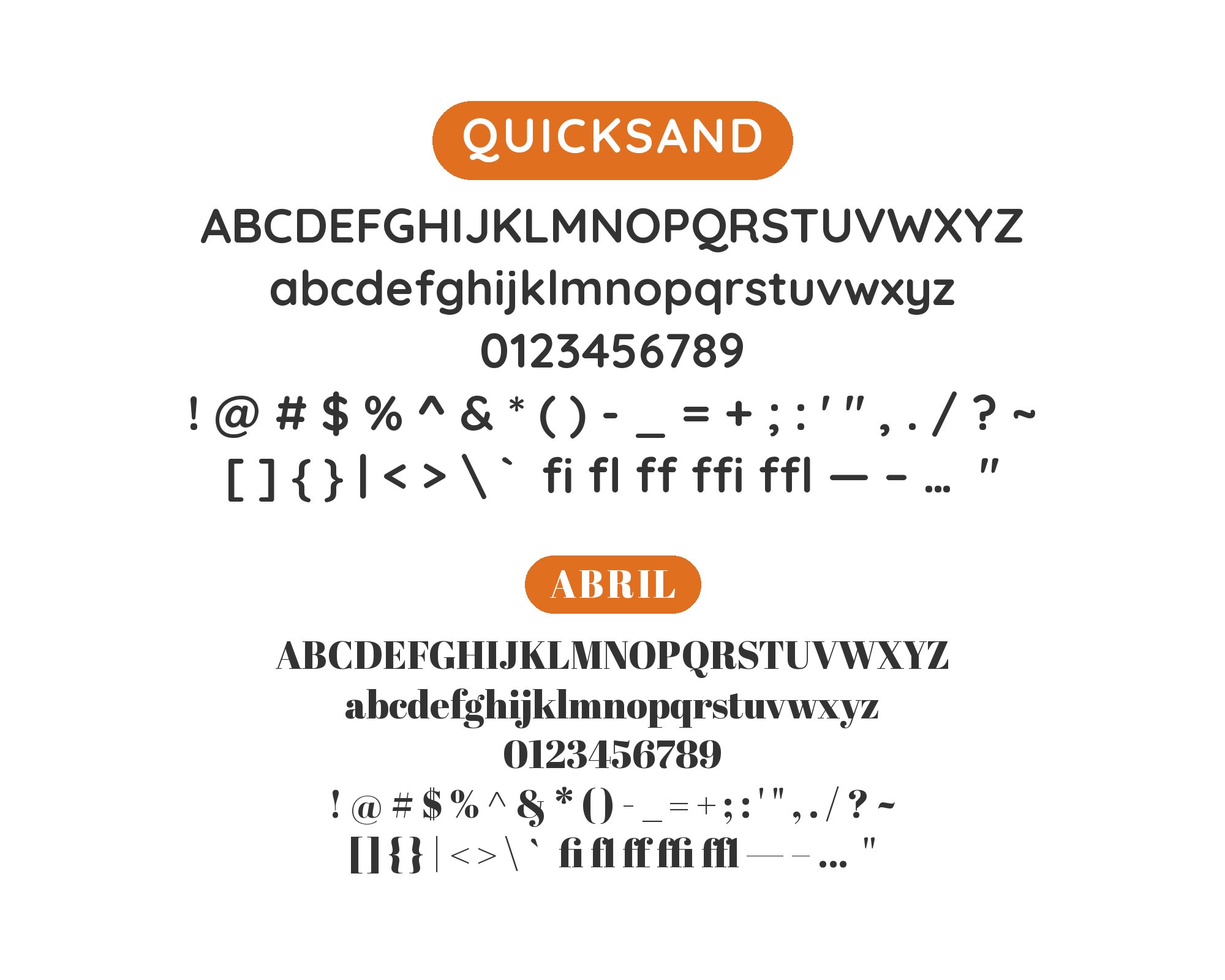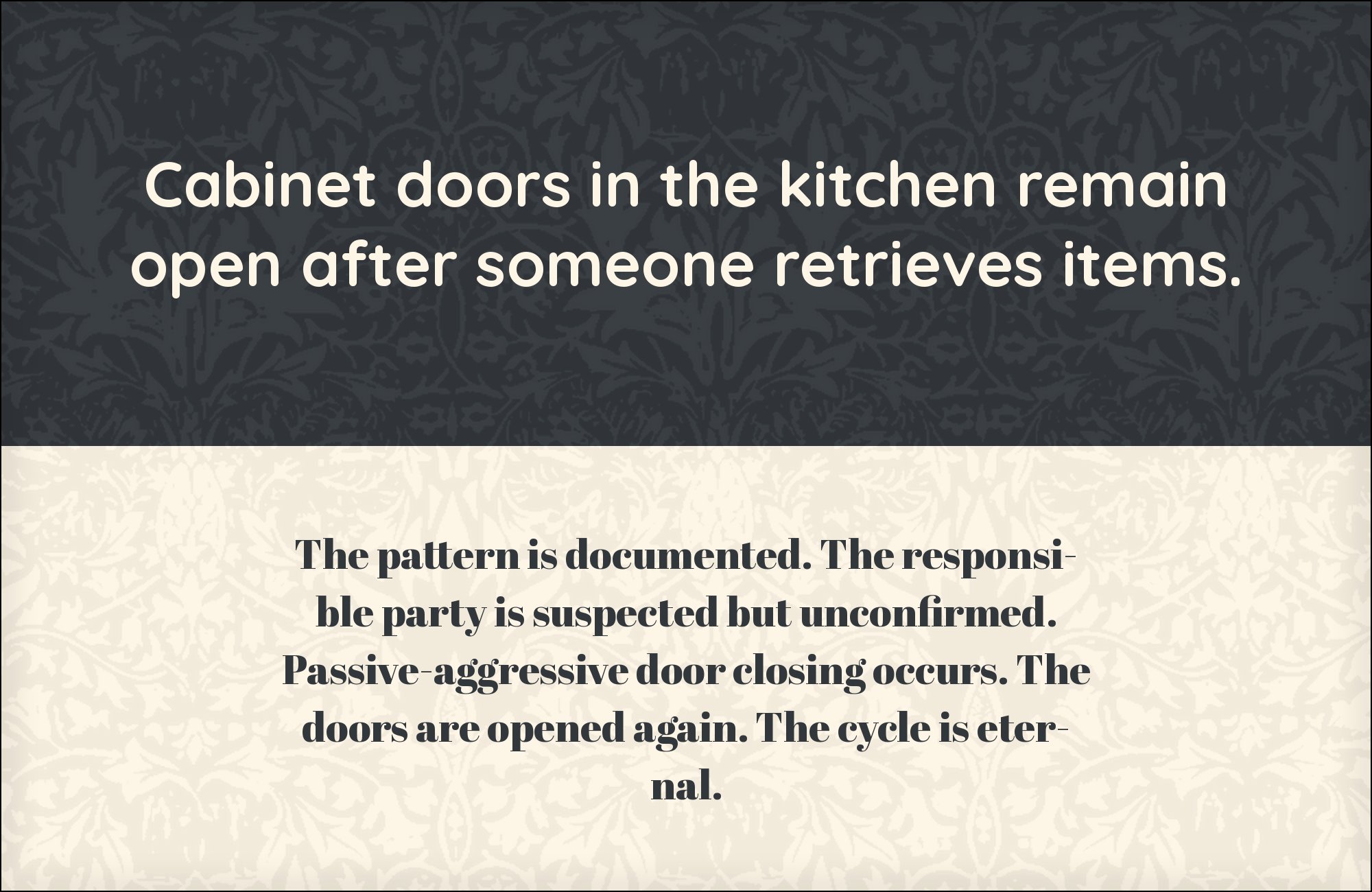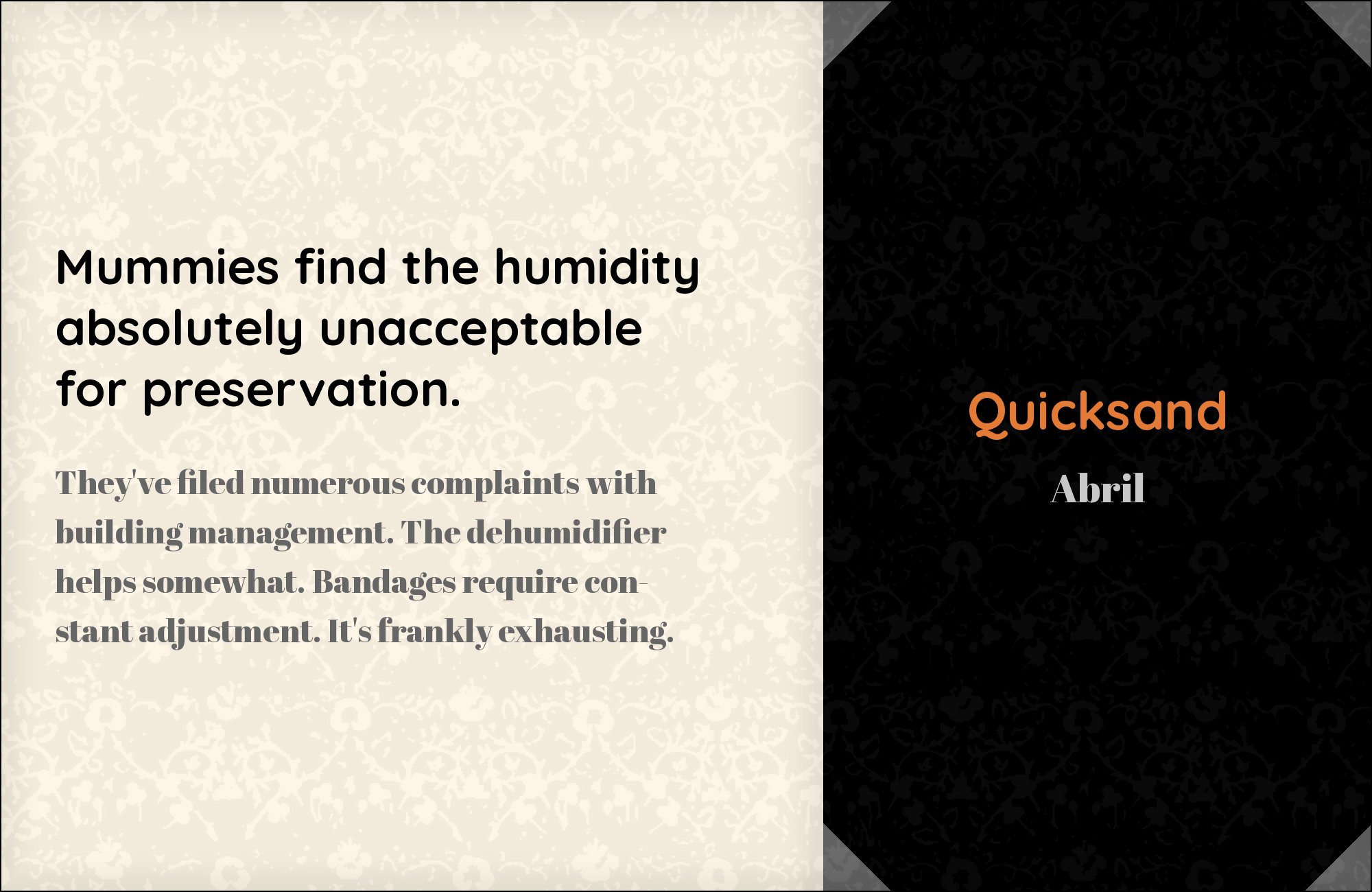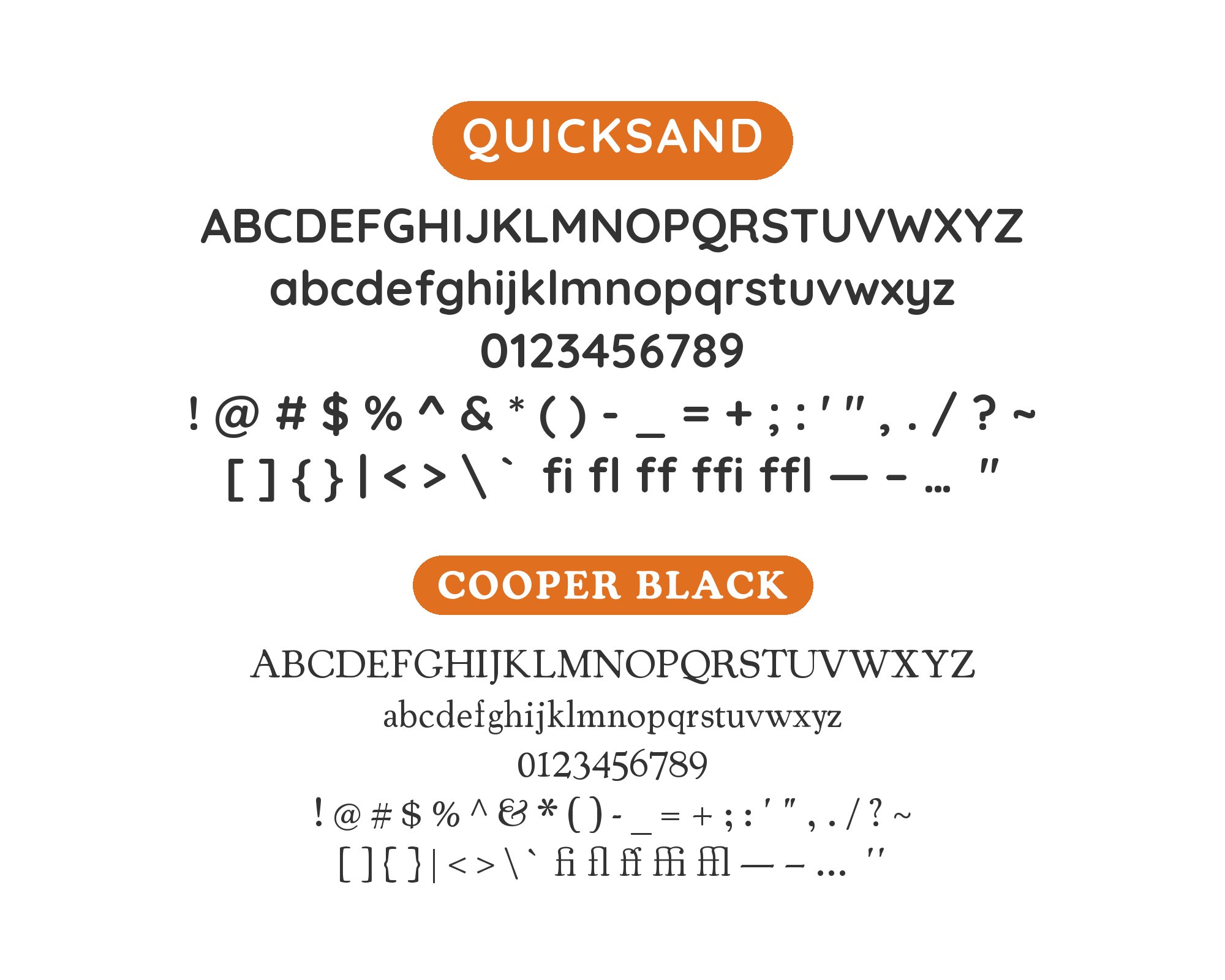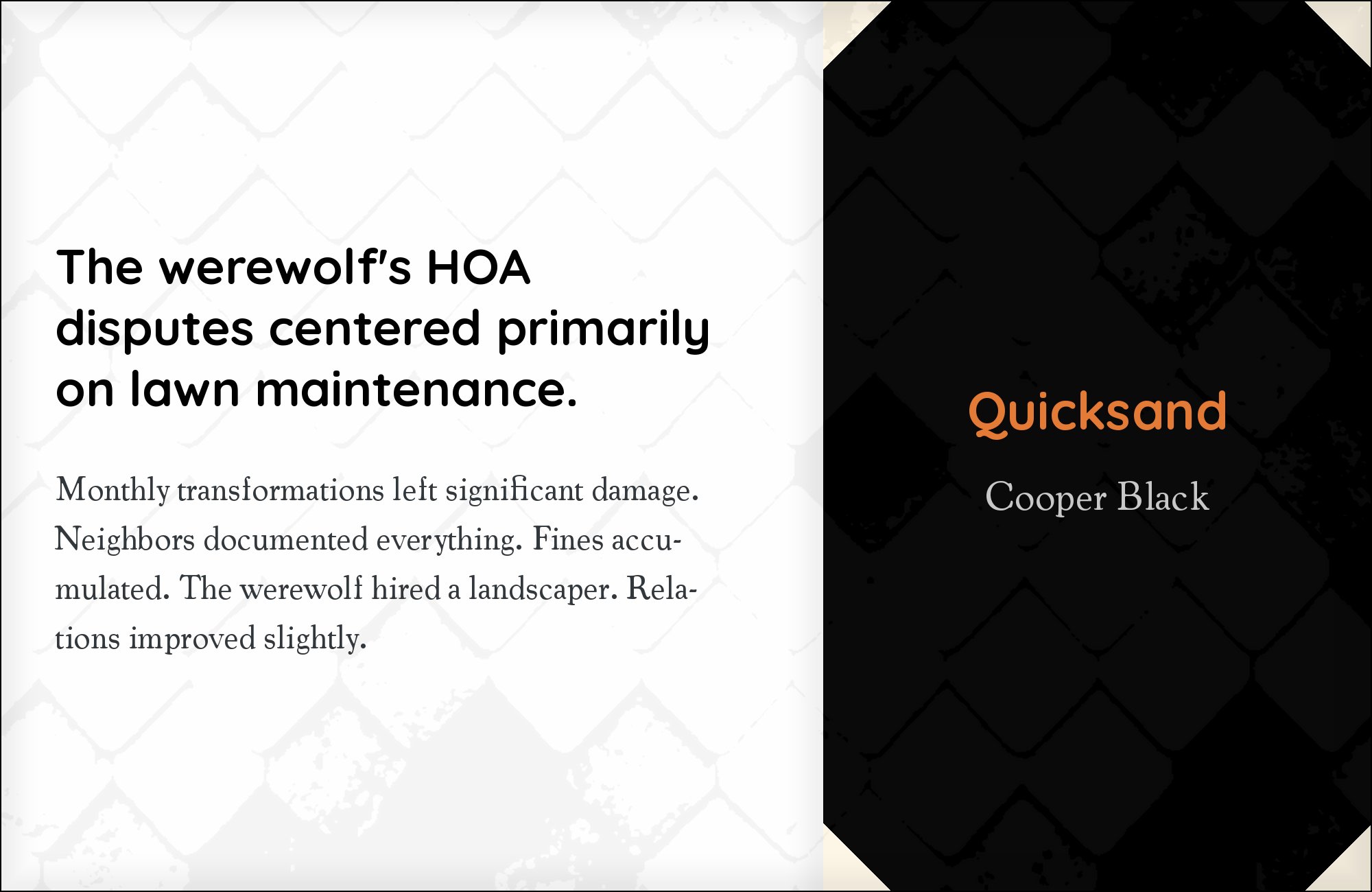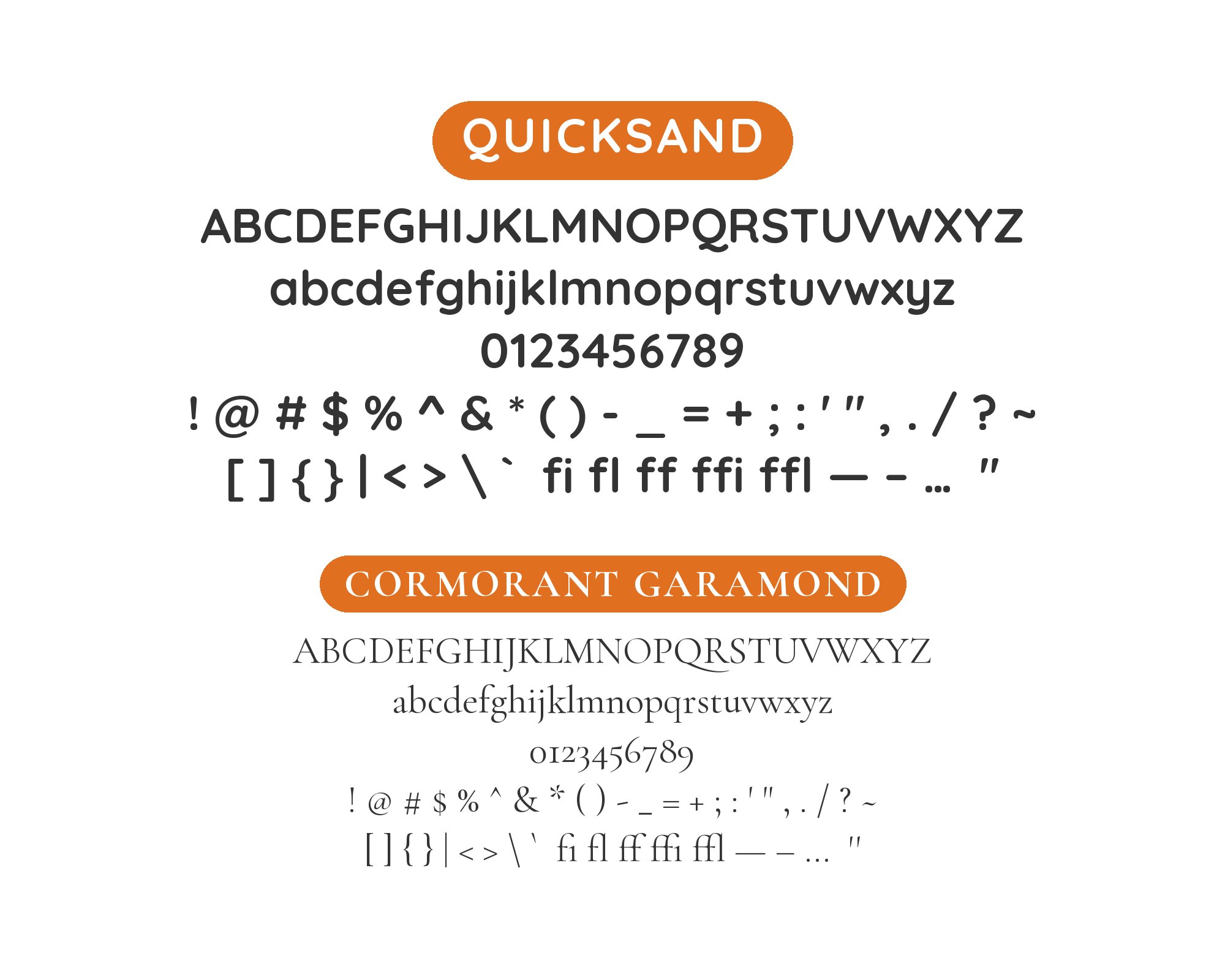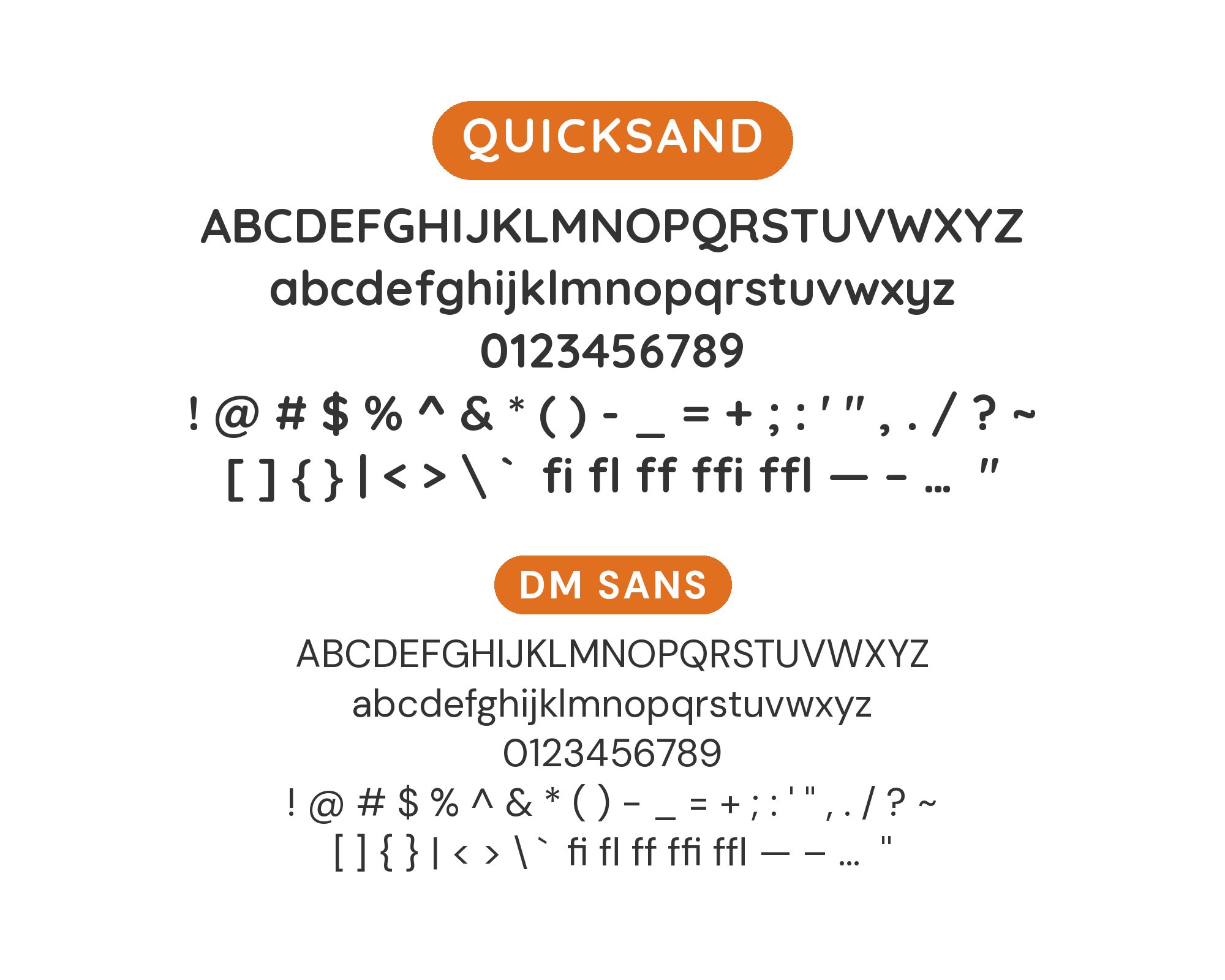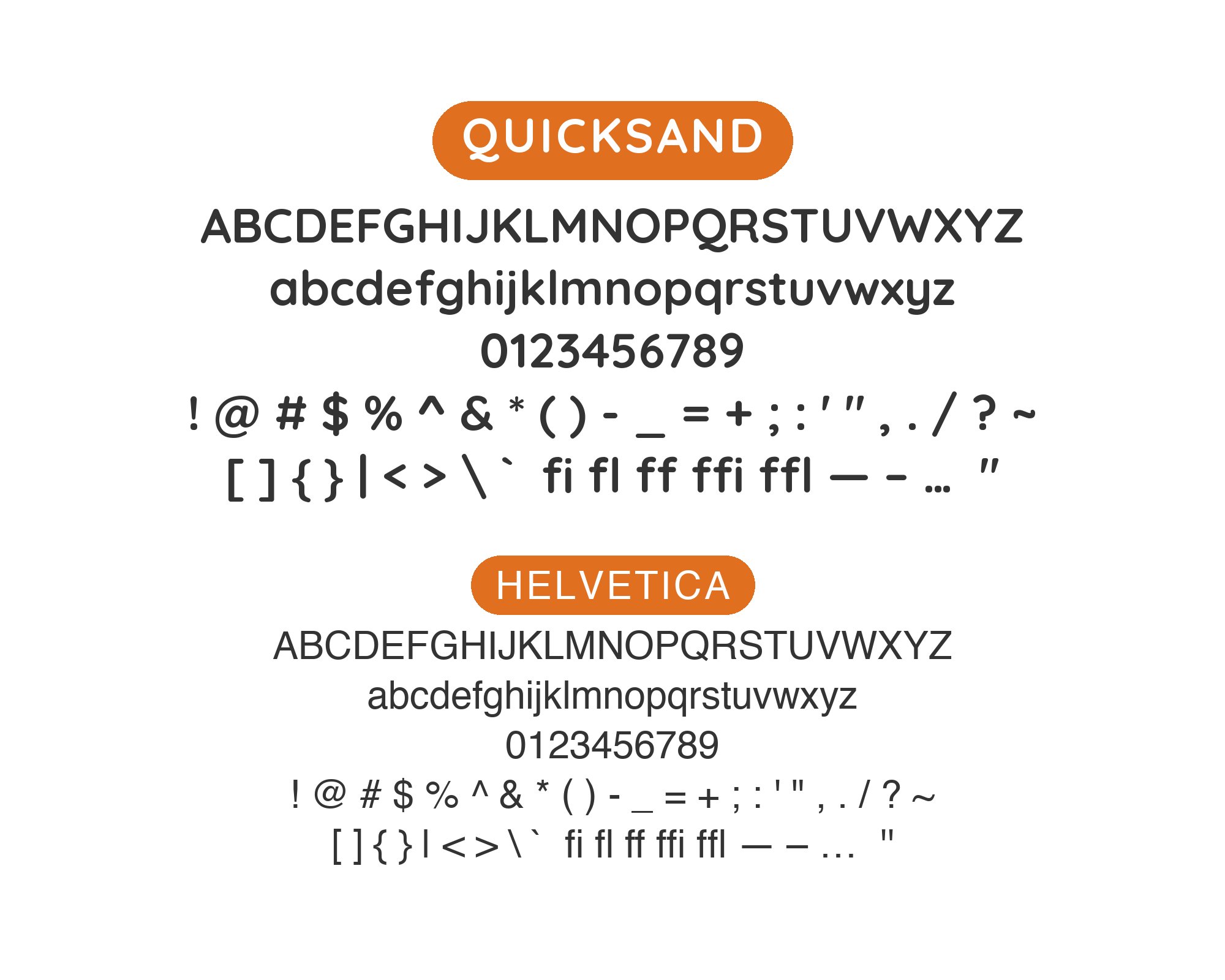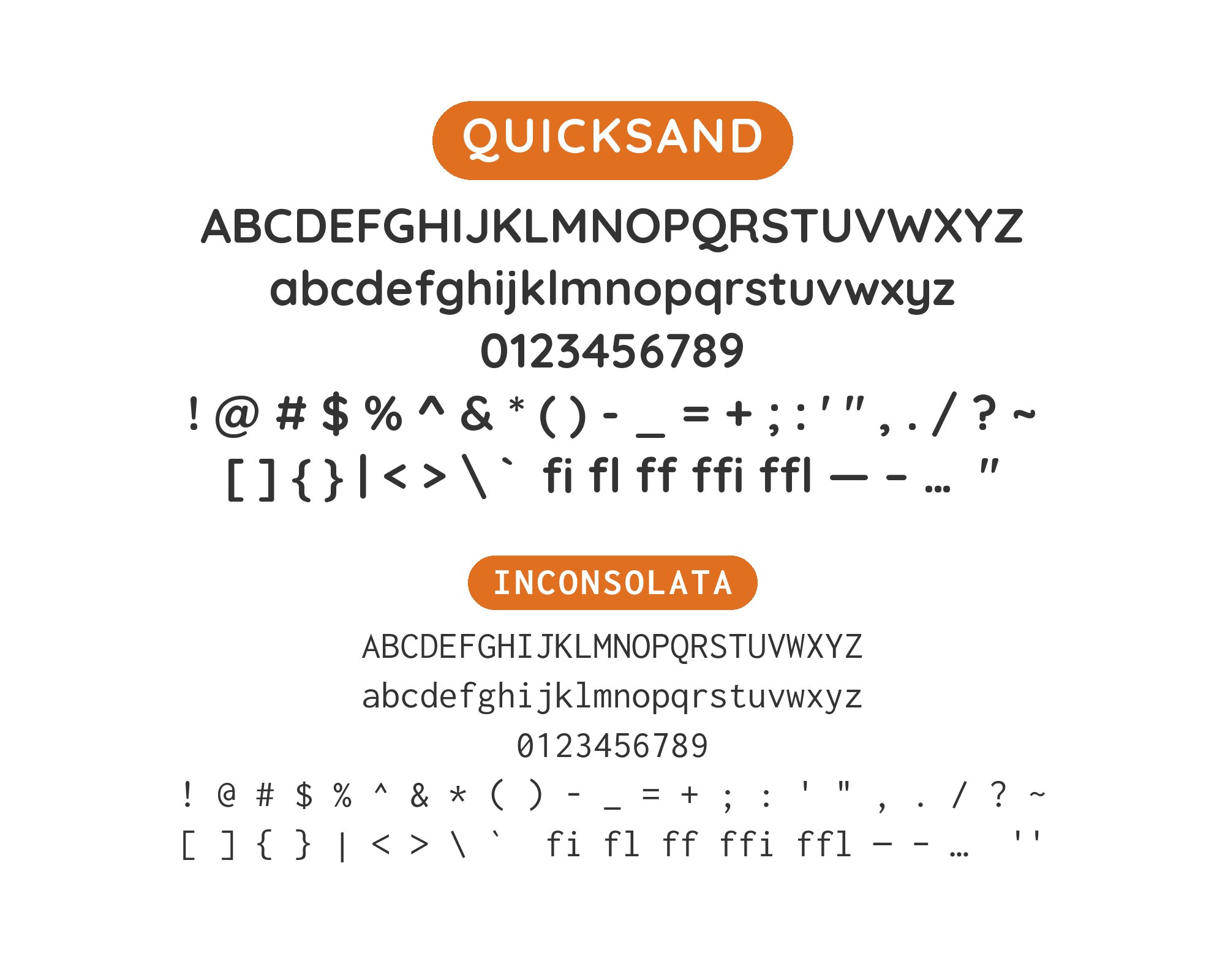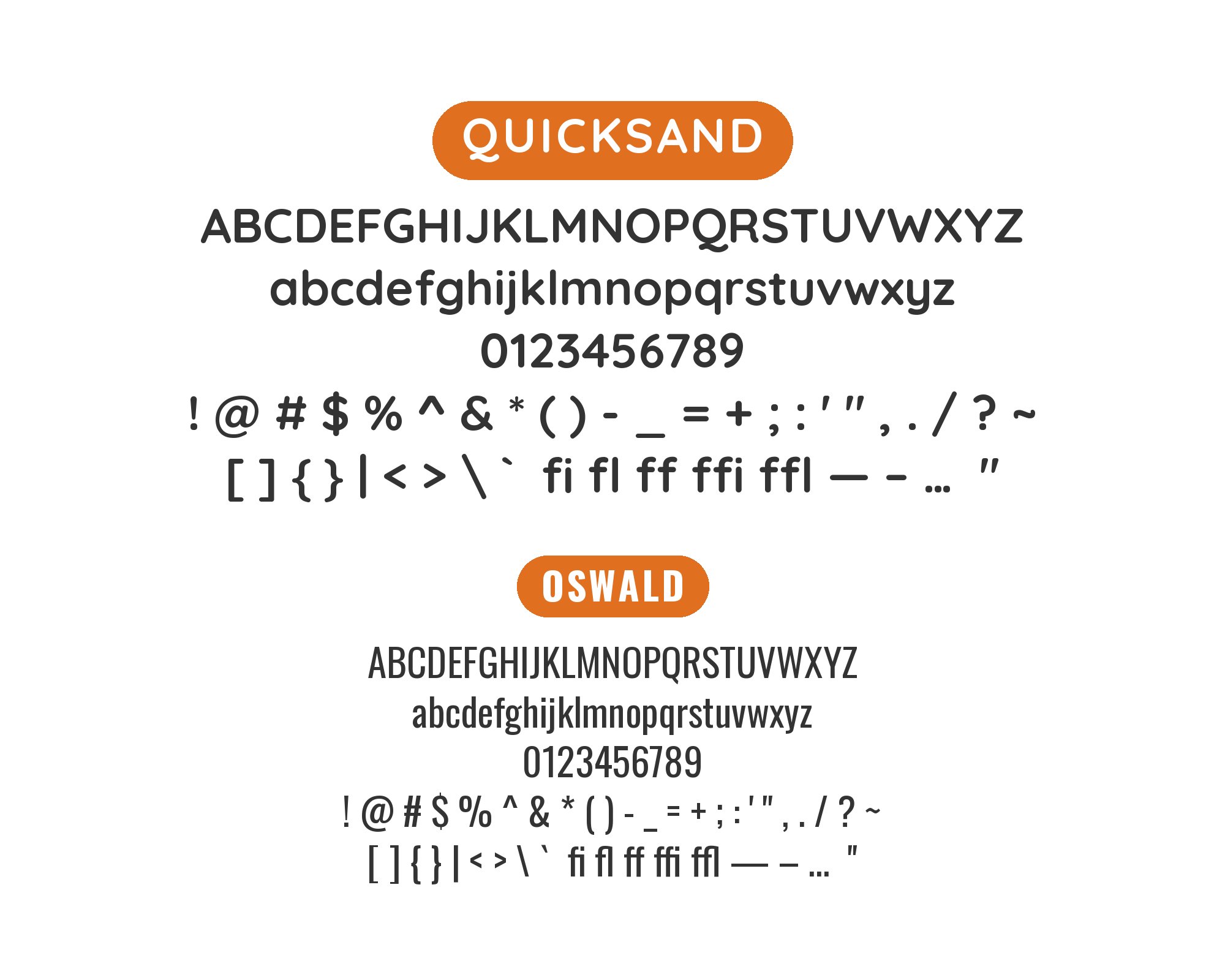
Quicksand pairs great with Open Sans, Roboto and Lato. All 15 pairings are shown below in real rendered specimens, with the reason each one works.
What fonts go with Quicksand? This free rounded geometric sans is built almost entirely from circles, which gives it a friendly, approachable warmth that few other Google Fonts can match — and a weight so light in Regular that almost everything it sits beside ends up doing the actual reading.
Quicksand’s letterforms are drawn from near-circular geometric shapes, with rounded terminals softening every stroke ending rather than the sharp cuts of a typical grotesque. That construction gives it real charm at display sizes — headlines, logotypes, packaging — but the same circular geometry that reads as friendly also eats horizontal space and thins out at small sizes, which limits how far it can be pushed into body text. It is free on Google Fonts, distributed widely enough that licensing is never a barrier to using it.
Quicksand is best treated as a display and branding face rather than a running-text face, so the useful question behind every pairing below is which typeface takes over the reading. The choices range from close sans pairings to stronger structural opposition from serifs and slabs. Both approaches work; the pairings below start with the safest and most obtainable.
1. Open Sans
Open Sans is a humanist workhorse with a bigger x-height and open apertures that carry the long paragraphs Quicksand’s wide, circular letterforms make tiring to read at length. One brand book uses Quicksand for headlines and Open Sans for body text. Quicksand takes headings and short display lines; Open Sans takes everything a reader has to finish.
Roboto’s tighter, faintly condensed neo-grotesque forms handle dense interface and body text comfortably, leaving Quicksand free to keep the display voice at headline and branding sizes. The two sit at opposite ends of the same practical spectrum — one built for reading, one built for personality — which is what keeps the pairing from blurring together. Easil lists Roboto as a partner in its Quicksand entry. Use Roboto for body copy, forms and UI chrome under any Quicksand headline.
3. Lato
Lato carries a trace of the same rounded softness as Quicksand, but at a much smaller, quieter scale, so the pair feels related rather than competing for the same job. That shared warmth at different intensities is what separates this pairing from a purely neutral sans underneath Quicksand’s display curves. Lato is the stronger choice for running text at small sizes specifically, where Quicksand itself becomes difficult to read. It is free on Google Fonts. Xara includes Lato and Quicksand among its curated font combinations. Use Lato for body copy and captions, reserving Quicksand for headings and short branding moments.
4. Montserrat
Montserrat and Quicksand are both geometric, which means this pairing needs deliberate separation rather than relying on contrast to do the work automatically. Montserrat is wider-set with flat terminals and a much heavier top weight available, against Quicksand’s light, fully rounded forms. Set them at clearly different weights and sizes or the two blur into one indistinct voice. It is free on Google Fonts. Attelia’s brand guide places Quicksand alongside Montserrat as a secondary typeface. Use Montserrat at a bold weight for subheads and Quicksand reserved for the lightest, most decorative headline role, keeping real distance between the two in the type scale.
Raleway’s thin geometric forms and distinctive angled details add sharpness exactly where Quicksand is all curve, giving the pairing an edge that pure roundness alone can’t supply. It works best used at display sizes, where Raleway’s more unusual character details actually register rather than disappearing into small type. It is free on Google Fonts, so testing the combination costs nothing before committing a brand system to it. A designer-curated Squarespace guide recommends Quicksand with Raleway for lifestyle brands and personal projects. The combination also suits fashion and wellness brands that want Quicksand’s warmth balanced against something leaner and more angular in the supporting type.
6. Oxygen
Oxygen is a screen-tuned humanist sans with a slightly squared skeleton, built to stay quiet in body copy rather than assert any personality of its own. That restraint means it never fights Quicksand’s rounder, more decorative display personality — it simply carries the paragraphs Quicksand isn’t suited for. It is free on Google Fonts, with a moderate x-height that holds up well in dense interface text. Use Oxygen for body text, captions and UI elements in any layout where Quicksand handles headlines, logotypes or short branding statements above it.
7. Spline Sans
Spline Sans is compact and slightly squared, so its counters read differently from Quicksand’s true circles: Spline Sans is a grotesque with condensed proportions. That narrower fit also saves line length in body copy, which matters given how much horizontal space Quicksand’s circular letterforms consume at any size. It is free on Google Fonts. Use Spline Sans for body copy and UI text, letting its tighter geometry do the practical work Quicksand’s wider forms make inefficient at paragraph sizes.
Test any combination at the size and length you intend to publish. Quicksand looks charming in a headline specimen and starts to strain well before a full paragraph, so the only reliable check is setting real copy at real size and watching where the roundness starts working against the reader instead of for it.